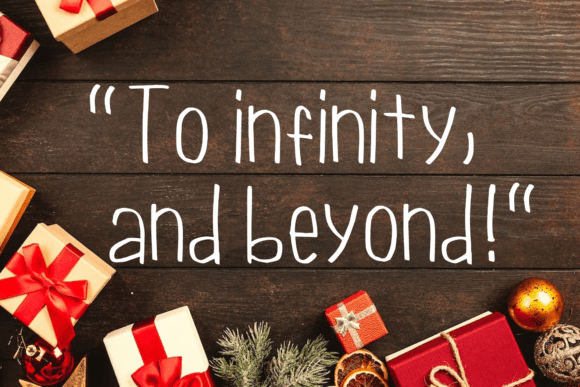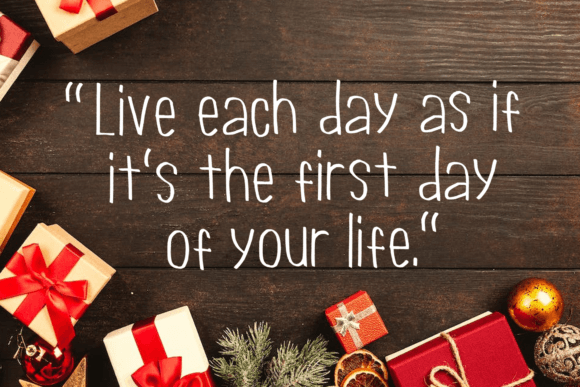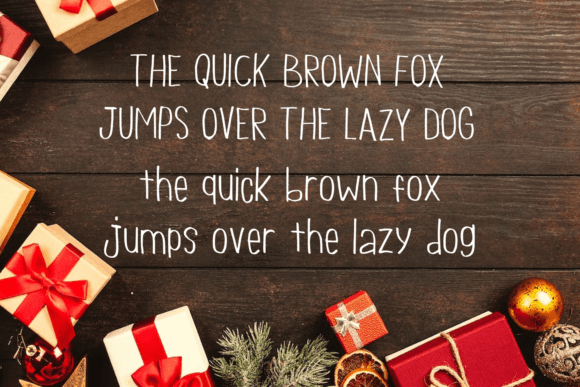
Introduction to Near Me Font
Near Me is a cheerful and fun handwritten font.
You can use it for anything ranging from t-shirts, kids’ book designs, and greeting cards to stickers and posters, or anything that needs a casual touch Fall in love with its incredibly versatile style, and use it to create lovely designs.
Near Me Font offers exceptional quality and versatility, making it a valuable addition to your design toolkit. Whether you’re creating for personal projects or commercial use, Near Me Font delivers professional results.